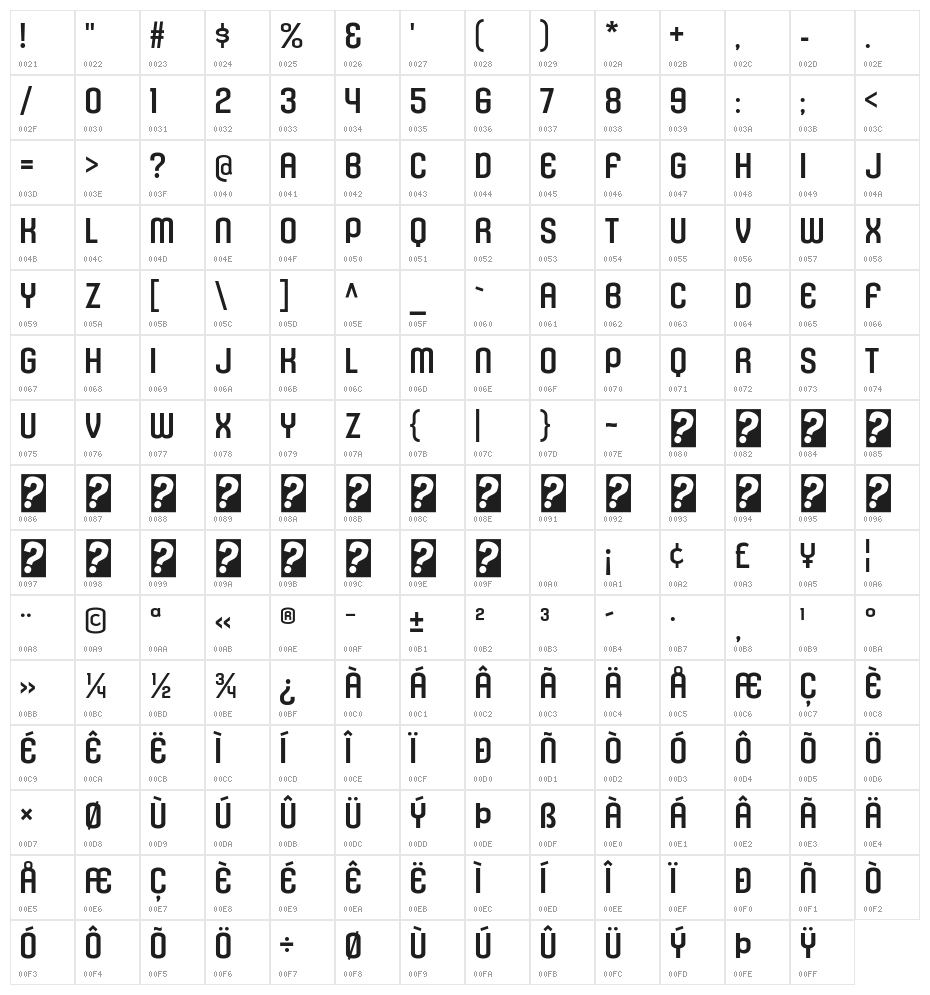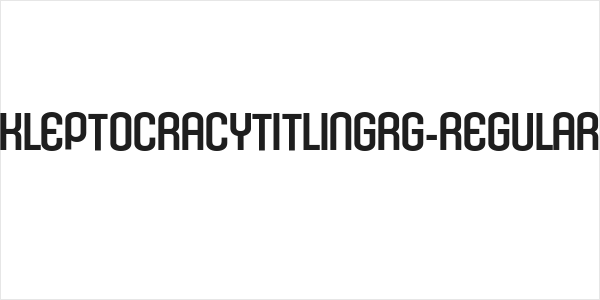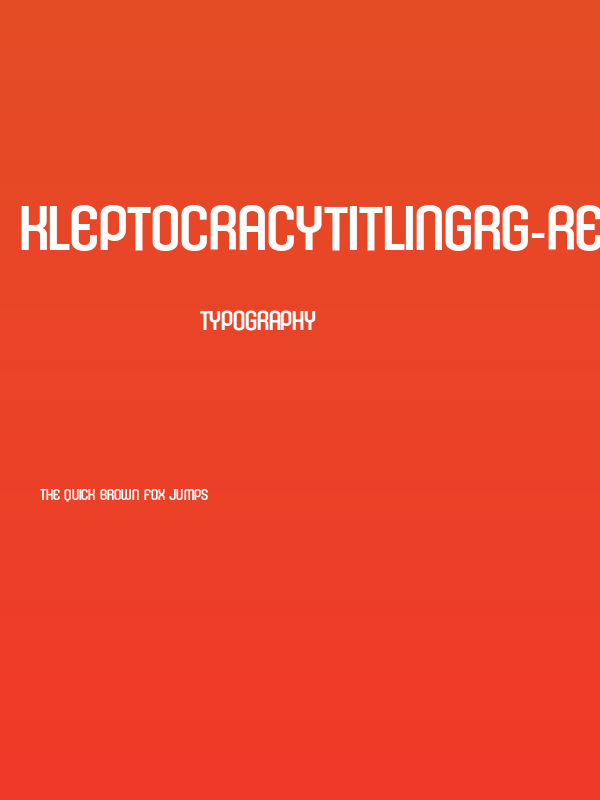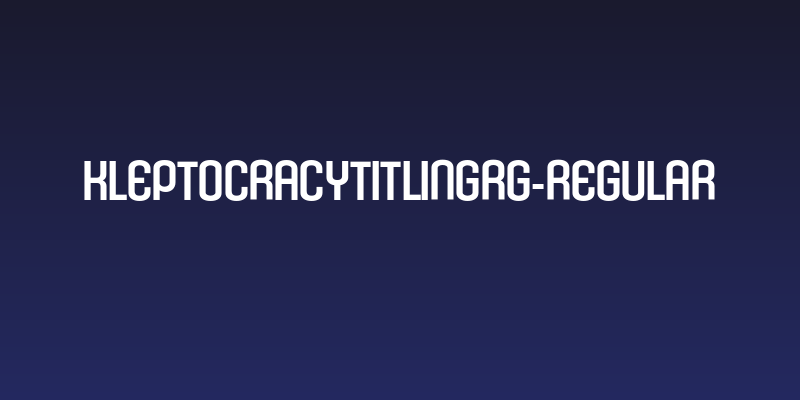
KleptocracyTitlingRg-Regular Font
KleptocracyTitlingRg-Regular Description
This font features a bold and modern design with a geometric structure. The characters are tall and narrow, with rounded edges that give a smooth and contemporary feel. The uppercase and lowercase letters maintain a consistent height, creating a uniform appearance. The numerals are clear and easy to read, matching the overall style of the alphabet. Special characters are distinct and well-integrated, enhancing the font's versatility. The design is clean and minimalistic, making it suitable for a variety of applications where a modern and sleek look is desired.
| Proposed Projects | Ideal for branding, headlines, posters, and digital media where a modern aesthetic is required. |